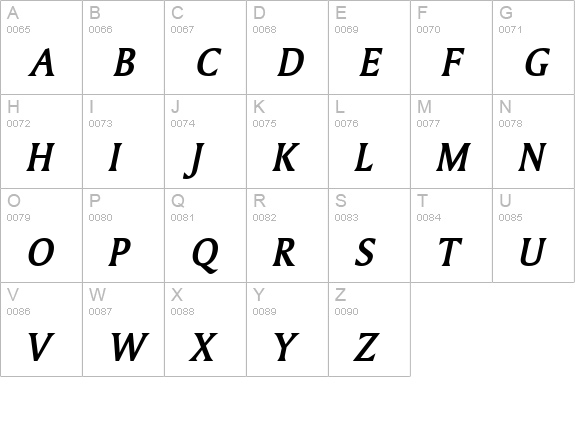
Ameretto BoldItalic font is a sleek and modern typeface that exudes elegance and sophistication. Its bold and italic style adds a touch of flair to any design project, making it perfect for headers, titles, and other eye-catching elements. The distinctive letterforms of Ameretto BoldItalic font are sure to make your text stand out and leave a lasting impression on your audience. What sets Ameretto BoldItalic font apart is not only its striking design, but also the fact that it is available for free download at FontsMarket.com. This means that you can easily access this stunning font and incorporate it into your projects without any additional cost. Whether you're working on a website, branding materials, or any other creative endeavor, Ameretto BoldItalic font is a versatile choice that will elevate your designs to the next level. Download Ameretto BoldItalic font for free today and discover the endless possibilities it offers for your design projects. Make a statement with this stylish and contemporary typeface that is sure to capture attention and leave a lasting impression.